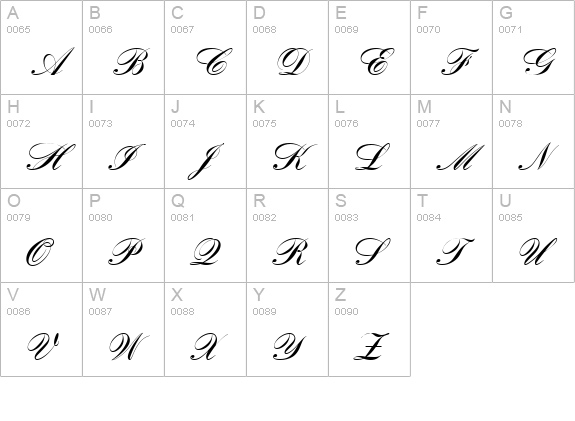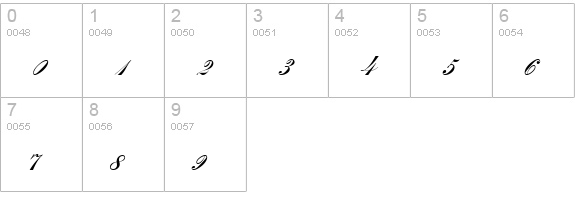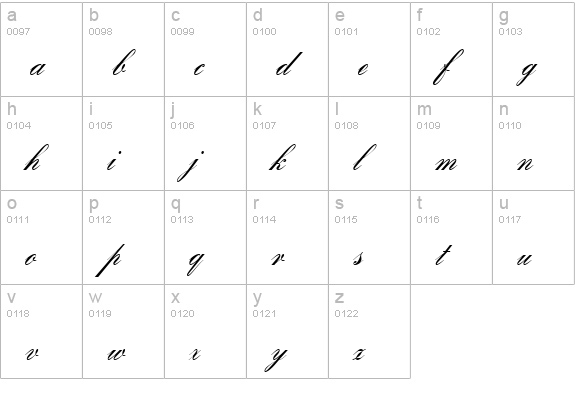
Romantica script Font Details
Introducing Romantica Script Font, a beautifully crafted typeface that exudes elegance and sophistication. This font is perfect for adding a touch of romance and charm to your designs. With its delicate curves and flowing lines, Romantica Script Font brings a sense of grace and refinement to any project. The best part? Romantica Script Font is completely free to download at FontsMarket.com. Whether you're working on wedding invitations, greeting cards, or branding materials, this font will elevate your designs and leave a lasting impression. Embrace the beauty of Romantica Script Font and let your creativity shine with this exquisite typeface.